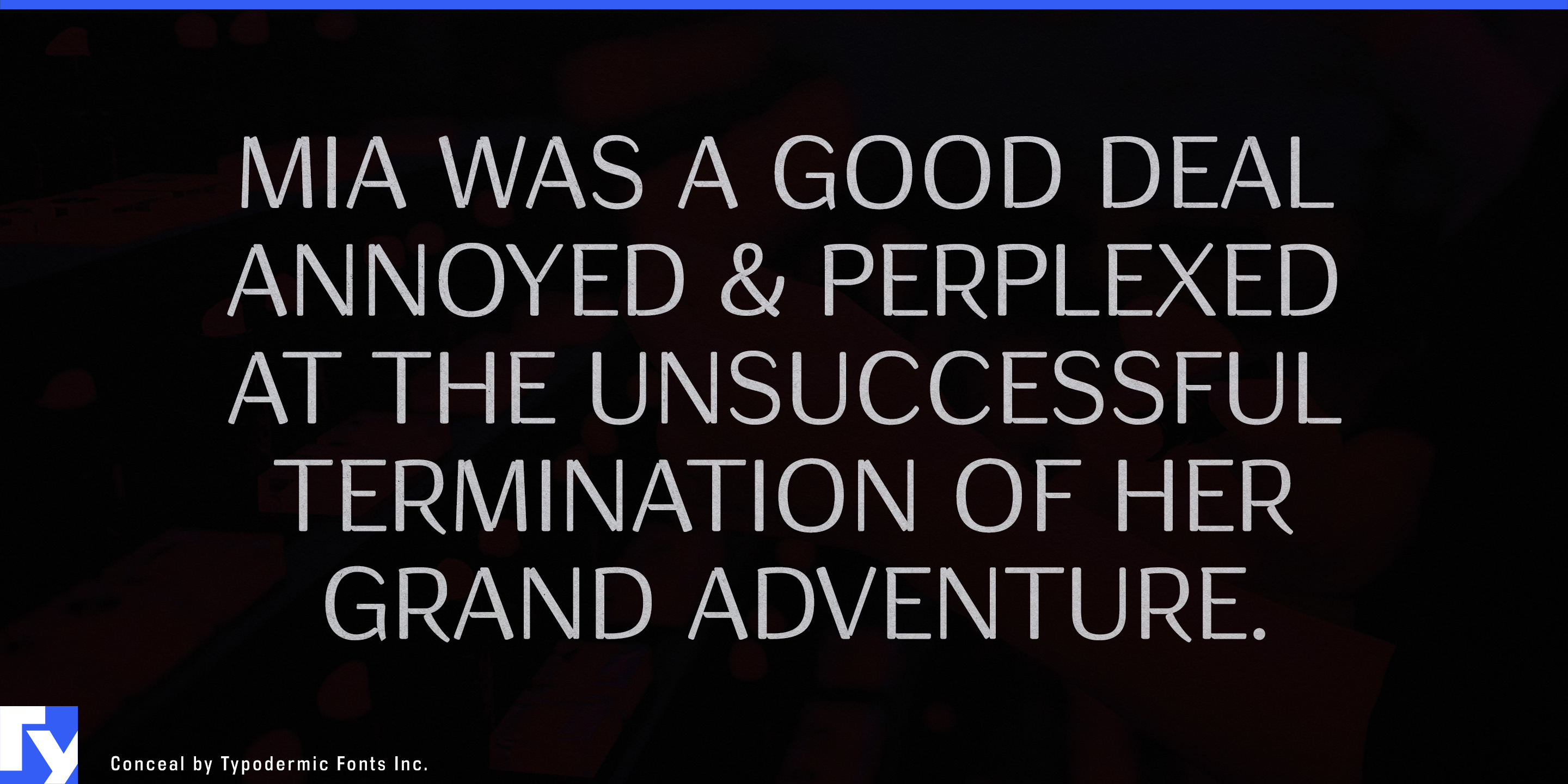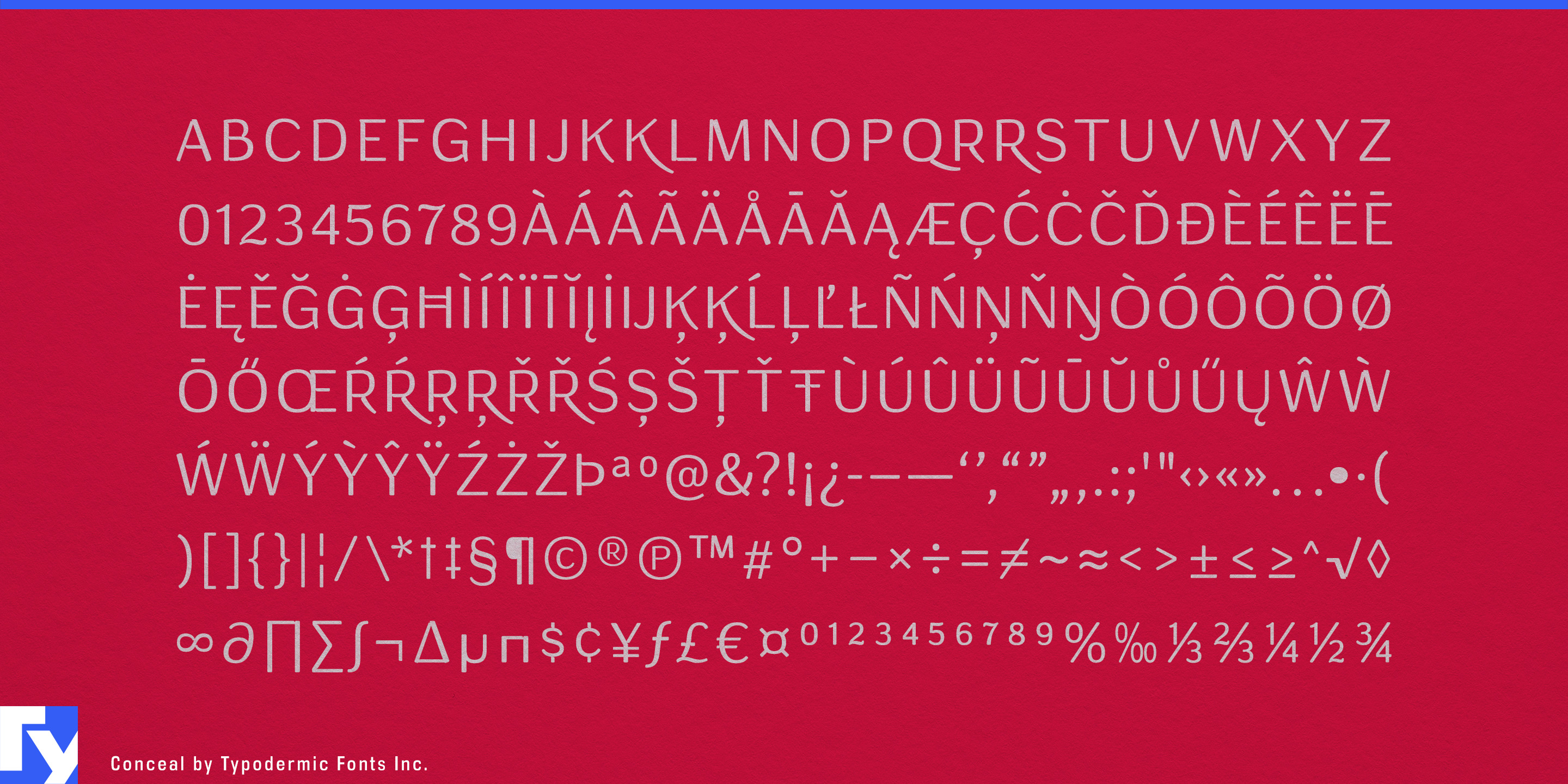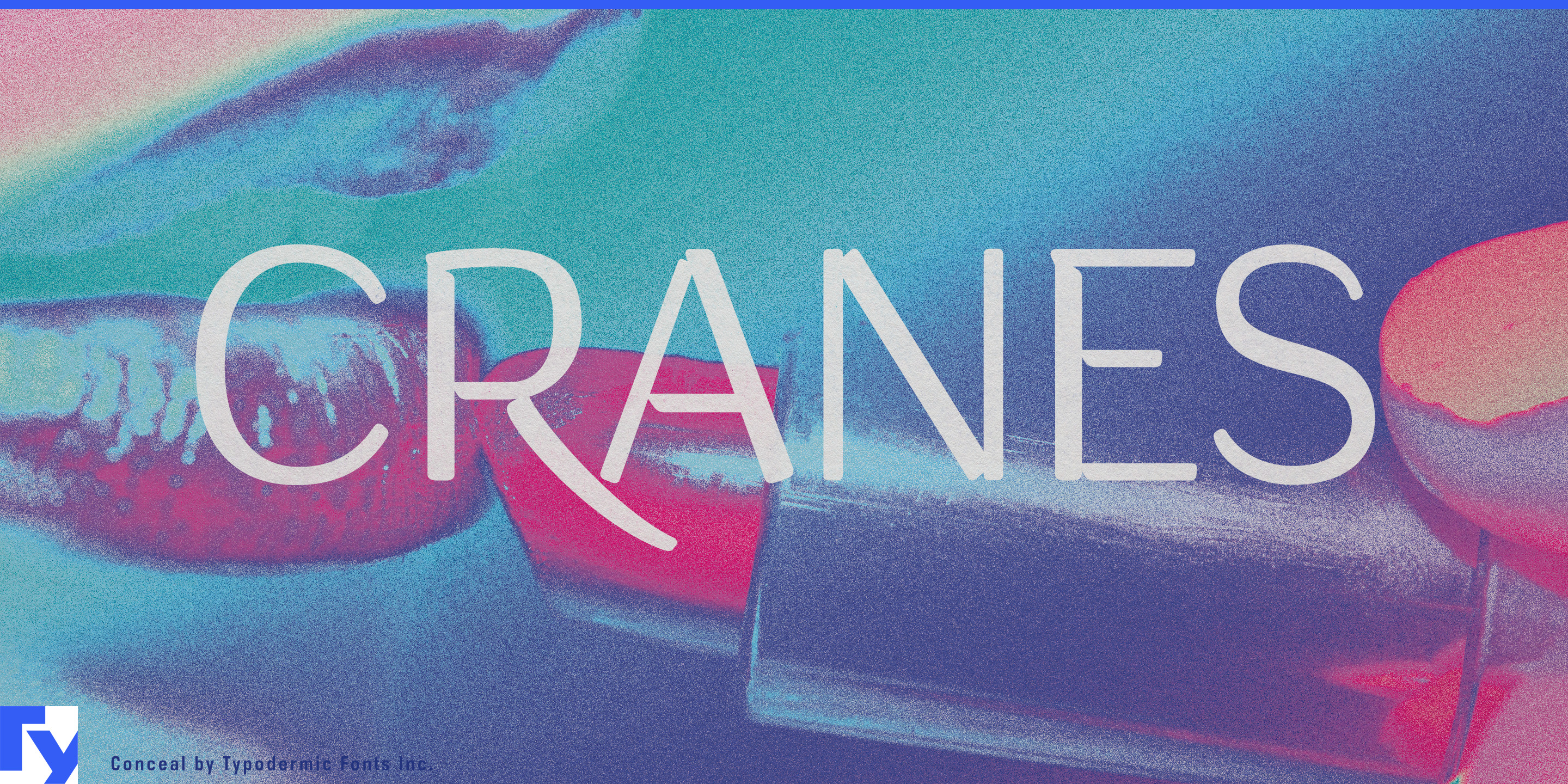
Conceal
Beauty is becoming more technological, but beauty technology still has to look like beauty. A clinical sans serif can make regenerative skincare, aesthetic devices, or personalized treatment systems feel like medical equipment; a conventional luxury serif can make the science feel decorative; overt futuristic typography can make a real product resemble speculative fiction. Conceal occupies a more useful middle ground. Its humanist structure keeps it connected to the body, while tapered strokes and tiny indented junctions introduce a subtle artificial quality.
That makes Conceal particularly suited to regenerative skincare, biotech beauty, peptide systems, microbiome products, longevity skincare, advanced hair and scalp care, and laboratory-developed cosmetic ingredients. Use it for serum names, treatment ranges, ingredient platforms, clinical-beauty packaging, launch campaigns, retail displays, and collection titles. Its forms can suggest biological structure and engineered intervention without resorting to molecular diagrams or sci-fi styling.
Medical aesthetics face a similar problem. Medspas, cosmetic dermatology practices, skin-rejuvenation clinics, laser and energy-based treatment centers, and longevity-oriented beauty programs need to appear medically credible without feeling like hospitals. Conceal can carry clinic names, proprietary treatments, skincare lines, consultation graphics, and campaign headlines while a neutral companion face handles prices, explanations, and practical information.
Beauty devices provide another strong territory. LED masks, microcurrent systems, skin scanners, RF devices, scalp tools, smart mirrors, and professional treatment machines sit somewhere between appliance, medical device, and luxury object. Conceal gives model names, product families, packaging, launch graphics, exhibition walls, and retail displays a technological edge that still feels physically intimate. The same quality suits personalized beauty systems built around skin analysis, custom formulations, adaptive shades, digital consultations, and individualized treatment programs.
Conceal began in the familiar world of lipstick, beauty counters, and cosmetics packaging. Its tapered forms and carefully adjusted almost-touching joins still suit complexion products, concealers, primers, lip treatments, professional makeup, prestige skincare, and experimental beauty collections. As cosmetics continue to overlap with biology, software, and hardware, those same forms become increasingly useful: human enough to belong to the body, strange enough to suggest that something more advanced is happening underneath.